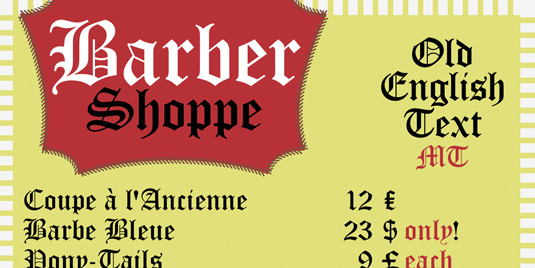
Greatest fonts countdown: 54 - Old English Text
54. Old English Text
- William Caslon, c1730
No type collection is complete without a blackletter typeface, and perhaps the best choice is Monotype’s Old English Text. Based on designs dating back to the early 18th century by William Caslon, it’s got all the chilling qualities of the medieval calligraphic script so many early typefaces attempted to replicate. Whereas blackletter was originally used for text in the 16th century, today it’s only really used at display sizes.
Of course, blackletter type wasn’t confined to England, and there are numerous excellent German, Italian and French examples. Along with its age-old charm, Caslon’s blackletter is refined and clear. It was redrawn by Monotype in 1935, and is now available digitally as Old English Text.